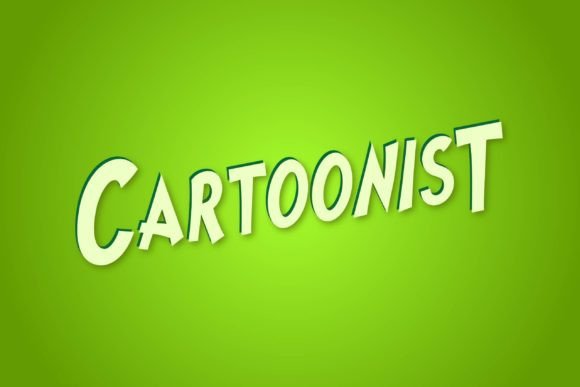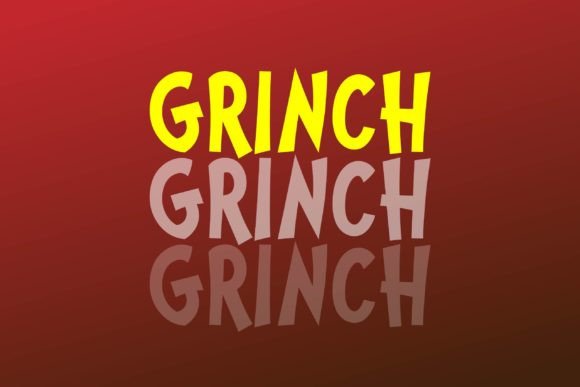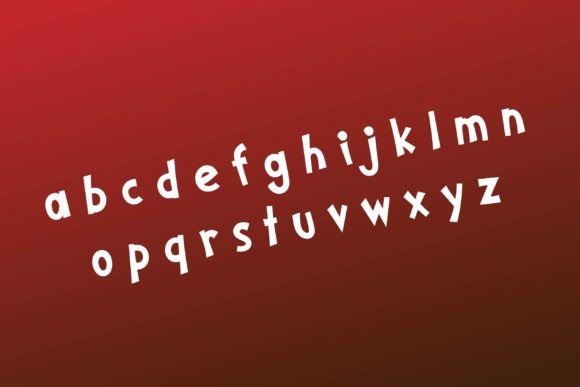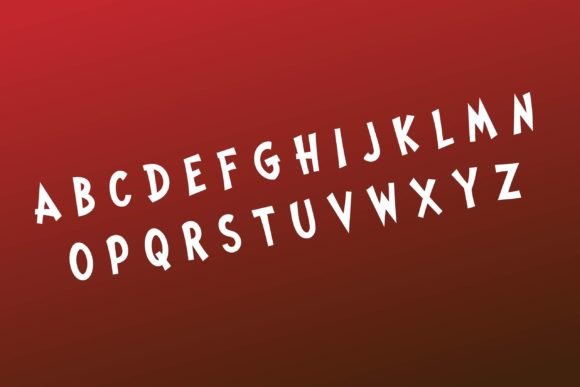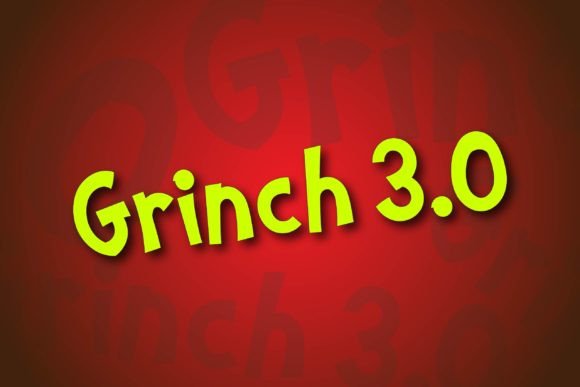
Introducing Grinch 3.0 Font: The Ultimate Stylish Decorative Font for Creative Projects
Are you a designer, crafty enthusiast, or simply someone who loves to add a touch of personality to their creative projects? Look no further! We’re thrilled to introduce Grinch 3.0 Font, an exquisite stylish decorative font crafted by Gothic, inspired by the beloved Grinch Cartoon Font. This modern, high-quality font is perfect for adding a whimsical charm to your title headings, movie names, T-shirt designs, and more.
What Makes Grinch 3.0 Font So Special?
Grinch 3.0 Font boasts an impressive 96 meticulously designed glyphs and 95 characters, making it a versatile and captivating addition to any creative project. Its unique blend of modern quality and nostalgic charm ensures that your designs stand out from the crowd. Whether you’re working on a title heading, movie name, or T-shirt design, this font is sure to add a touch of flair and personality.
Key Features of Grinch 3.0 Font
- Stylish Decorative Font: Grinch 3.0 Font is a beautifully crafted decorative font, perfect for adding a touch of elegance and sophistication to your designs.
- Modern Quality: With its modern design and high-quality craftsmanship, this font is sure to impress even the most discerning designers and crafters.
- Whimsical Charm: Inspired by the beloved Grinch Cartoon Font, Grinch 3.0 Font embodies a playful and whimsical charm that’s sure to delight audiences of all ages.
- 96 Glyphs and 95 Characters: With an impressive range of glyphs and characters, this font offers endless possibilities for creative expression.
- Ideal for Various Design Projects: From title headings and movie names to T-shirt designs and more, Grinch 3.0 Font is the perfect choice for a wide range of creative projects.
Why Choose Grinch 3.0 Font?
With so many fonts available, why choose Grinch 3.0 Font? Here are just a few reasons why designers and crafters are falling in love with this exquisite font:
- Unique and Eye-Catching: Grinch 3.0 Font is a true showstopper, with its unique blend of modern quality and whimsical charm making it a standout in any design.
- Versatile: With its wide range of glyphs and characters, this font can be used for a variety of design projects, from title headings and movie names to T-shirt designs and more.
- High-Quality Craftsmanship: Crafted with love and attention to detail, this font is a testament to the skill and expertise of its creator, Gothic.
How to Use Grinch 3.0 Font in Your Designs
Ready to add Grinch 3.0 Font to your design arsenal? Here are a few tips on how to get the most out of this amazing font:
- Experiment with Different Sizes and Colors: Grinch 3.0 Font looks great in a variety of sizes and colors, so don’t be afraid to experiment and find the perfect combination for your design.
- Pair with Other Fonts: Try pairing Grinch 3.0 Font with other fonts to create a unique and eye-catching design.
- Use for Title Headings and Movie Names: Grinch 3.0 Font is perfect for title headings and movie names, adding a touch of whimsy and charm to your designs.
- Add to T-Shirt Designs: This font is also great for T-shirt designs, making it easy to create fun and stylish apparel.
In conclusion, Grinch 3.0 Font is an exquisite stylish decorative font that’s perfect for designers, crafters, and anyone looking to add a touch of personality to their creative projects. With its unique blend of modern quality and whimsical charm, this font is sure to delight audiences of all ages. So why wait? Download Grinch 3.0 Font today and start adding a touch of flair to your designs!